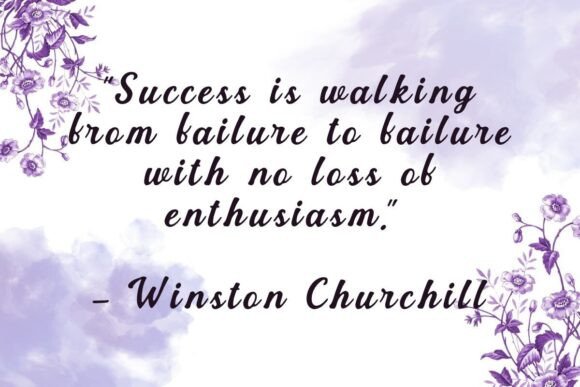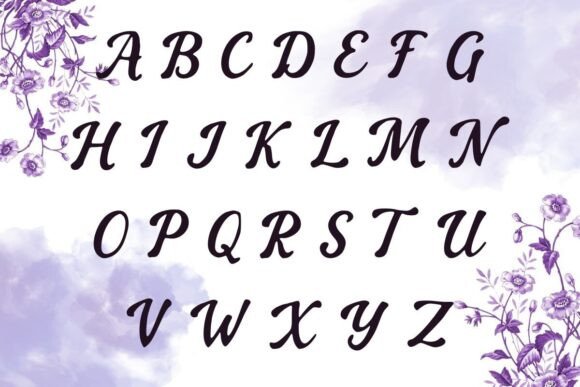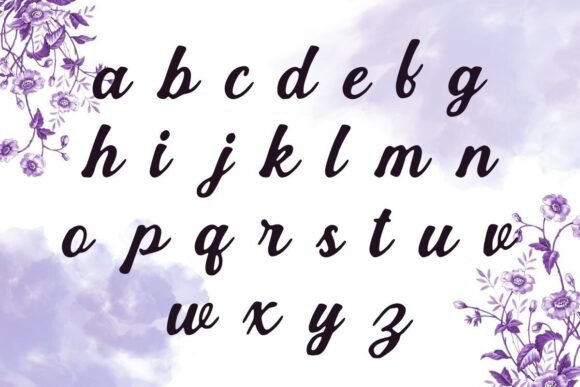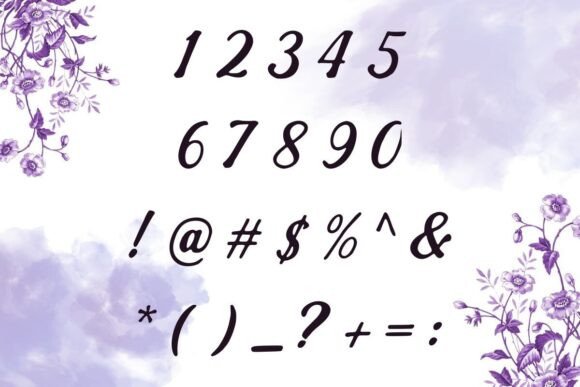
Unleash Your Creative Confidence with the Bold Brush Script Font
You know that moment when a design idea suddenly sparks and you can’t wait to bring it to life? The rush of adrenaline, the thrill of experimentation, and the satisfaction of watching your concept take shape – it’s a feeling that’s hard to beat. And what better way to capture that energy than with a font that embodies confidence and creativity?
Enter the Bold Brush Script Font, a dynamic typeface that combines thick, impactful lines with a playful bounce. Designed to make a statement, this font is perfect for projects that demand attention – from headings and posters to social media graphics and branding. With its artistic flair and contemporary style, the Bold Brush Script Font adds a touch of sophistication to your designs, making it a valuable asset for any designer looking to elevate their work.
Bold Brush Script Font Key Features
- Unique Characteristics: Hand-drawn, brush script design with a bold and elegant feel, perfect for adding a touch of sophistication to your designs.
- Language Support: Supports a wide range of languages, including Latin, Cyrillic, and Greek, making it a versatile font for global designs.
- Kerning and Ligatures: Includes expertly crafted kerning pairs and ligatures, ensuring smooth and even spacing between characters.
- Font Weight and Style: Offers a range of weights, from Light to Extra Bold, allowing you to customize the font to suit your design needs.
Designer Review: Bold Brush Script Font
The Bold Brush Script Font ✨ is a beautiful addition to any design project. Its elegant, handwritten style adds a touch of sophistication and creativity to any text. The font’s bold strokes and fluid connections between letters give it a dynamic feel that’s perfect for headlines, titles, and other emphasis text.
Here are some of the font’s strengths:
- ✨ High contrast between thick and thin strokes, creating visual interest and depth.
- ✨ Smooth connections between letters, making it easy to read and scan.
- ✨ Wide range of font sizes and styles, allowing for versatility in design applications.
- ⚠️ Limited character set, which may not be ideal for extended text or body copy.
- ⚠️ May not be suitable for small font sizes, as the bold strokes can become blurry.
- ⚠️ Can be challenging to pair with other fonts, as its unique style may overpower other typography.
Overall, I’m impressed with the Bold Brush Script Font’s unique style and versatility. While it may have some limitations, it’s a great choice for designers looking to add a touch of elegance and sophistication to their work.
Use the Bold Brush Script font to add a touch of elegance and sophistication to your designs.
– Creating invitations and event graphics
– Designing branding materials and logos
– Adding a handwritten touch to digital art
Remember to experiment with different font sizes, colors, and settings to get the most out of this versatile font.
Alternatives to Bold Brush Script Font for Designers
Great Vibes is a modern calligraphy script font that is perfect for creating a sophisticated and elegant look. It is ideal for use in wedding invitations, luxury branding, and high-end packaging. Compared to Bold Brush Script Font, Great Vibes has a more refined and precise feel, making it suitable for a wider range of applications.
Pacifico is a beautiful script font with a relaxed and casual vibe. It is great for use in beach-inspired branding, outdoor advertising, and summer-themed campaigns. While it shares a similar feel to Bold Brush Script Font, Pacifico has a more laid-back and effortless quality, making it perfect for creating a carefree and summery atmosphere.
Carolyna Pro is a elegant and sophisticated script font that is perfect for creating a luxurious and high-end look. It is ideal for use in fashion branding, luxury packaging, and high-end advertising. Compared to Bold Brush Script Font, Carolyna Pro has a more refined and polished feel, making it suitable for a wide range of high-end applications.